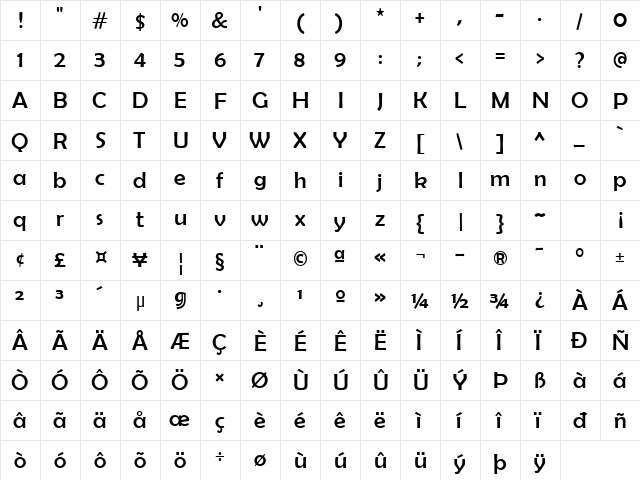
Berlin Sans FB Regular
| Foundry | The Font Bureau, Inc. |
| Designer | David Berlow |
Design Context for Berlin Sans FB Typeface
Berlin Sans FB offers clean, dependable letterforms without strong stylistic allegiance, making it a practical choice for designers who need flexibility.